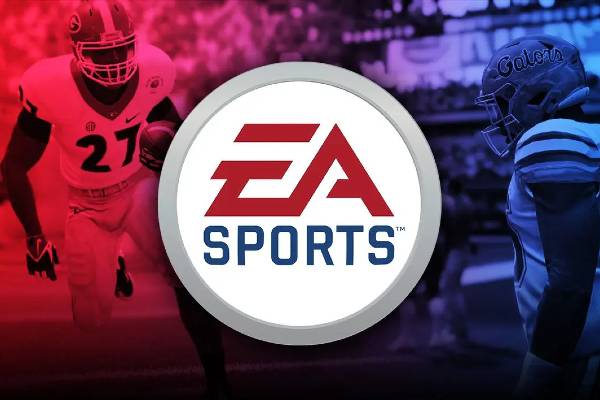
The EA Sports font that most closely resembles the official logo for this publisher of sports video games is a typeface by the name of EA FONT. It was designed and created by a font author called 538Lyons. An interesting detail about this font is that it was created usined the Fonstruct typography design tool. EA Sports Covers SC is another free font that you can use if you're looking for a decent replica font - this is an outline typeface. you can view and download both of these for free below.
The 2020 redesign gave Electronic Arts' graphical online persona a sharp, modern appearance. The inclusion of the lettering and the fresh color scheme—coral red on white—made the logo appear bright and, thus, added distinctiveness, even though it is entirely based on the original monochrome version. The robust sans-serif "Electronic Arts" inscription is placed on the right of the solid coral circle with a stylized white monogram. The monogram's sharp edges are balanced by the logotype's simple, straight lines, giving the badge's circular shape more self-assurance. Additionally, the word "Sports" appears in the EA Sports logo in a different typeface, a custom square sans serif known as EA Sans Bold.